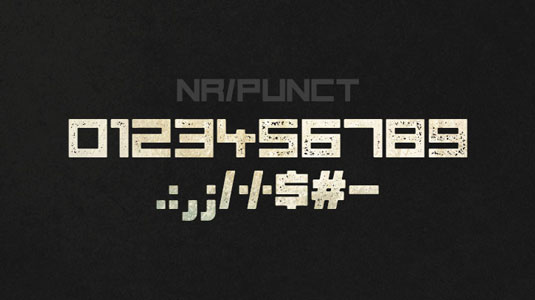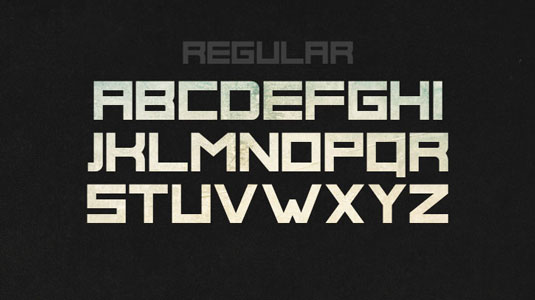
Font of the day: Phage
Every day we showcase the best fonts on the web. Today it's Phage by Mehmet Reha Tugcu, which is totally free to download.
Phage by Mehmet Reha Tugcu
If you're in need of an eye-catching display font, Phage by designer Mehmet Reha Tugcu could be just the solution. A free font family, available in two styles, regular and rough, Phage is based on a square layout.